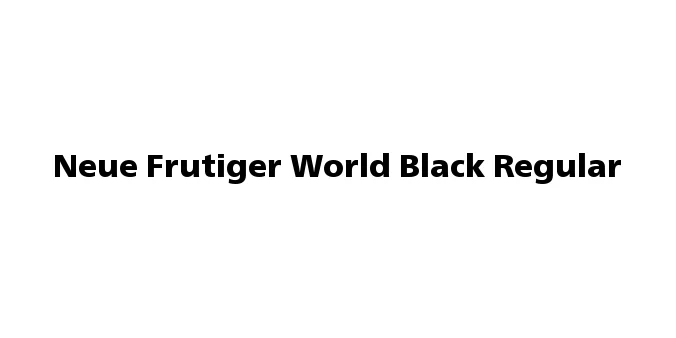
Neue Frutiger World Black Regular
Designed by Adrian Frutiger, Akira Kobayashi
| Category | Humanist Sans-Serif |
| Designer | Adrian Frutiger, Akira Kobayashi |
Neue Frutiger World is an expansive and modernized update of the legendary Frutiger typeface, originally created by Adrian Frutiger in the 1970s for the Charles de Gaulle Airport. This specific iteration was refined and extended by Akira Kobayashi and the Monotype Studio to serve as a truly global typographic solution, supporting over 150 languages across scripts including Latin, Greek, Cyrillic, and more.
The Black Regular weight is designed for maximum visual impact without sacrificing the humanistic clarity and openness that defines the family. It retains the signature open apertures and distinct character shapes, making it a premier choice for high-visibility environments, corporate branding, and complex information design where authority and legibility are equally required.
Neue Frutiger World Black Regular Best Uses
Exceptional clarity for large-scale public transport and architectural displays.
Authoritative and professional presence for global brand headers and logos.
High-impact headlines in both print media and digital marketing campaigns.
Bold emphasis for call-to-actions and hero sections on modern websites.